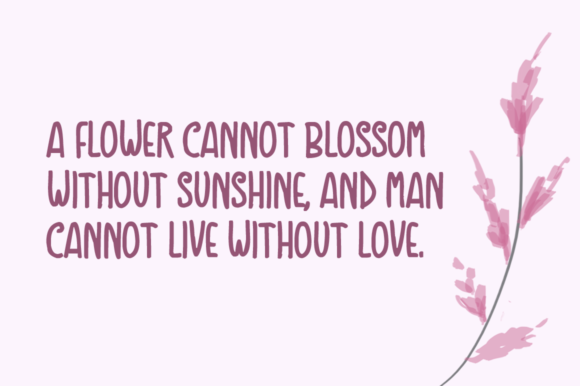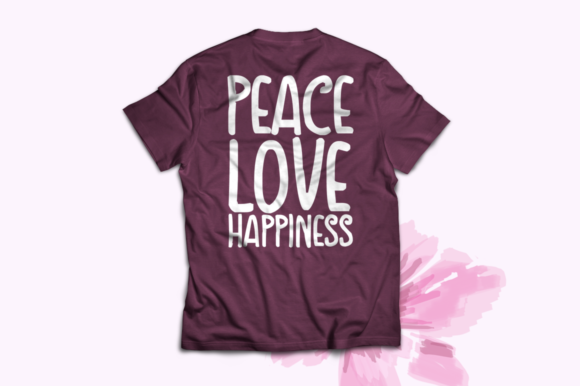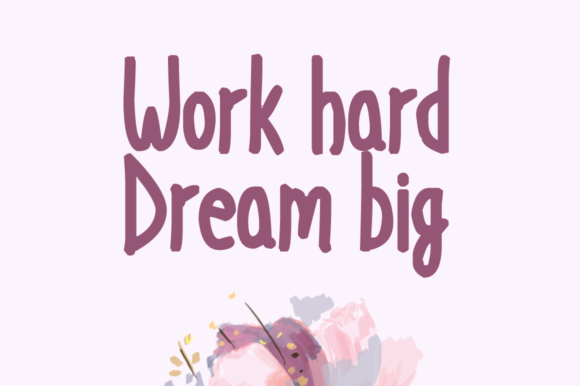
Debutant Font
Debutant is an adorable and lovely handwritten font with a unique feel. It will inspire any design project with its sweet, yet sophisticated charm!